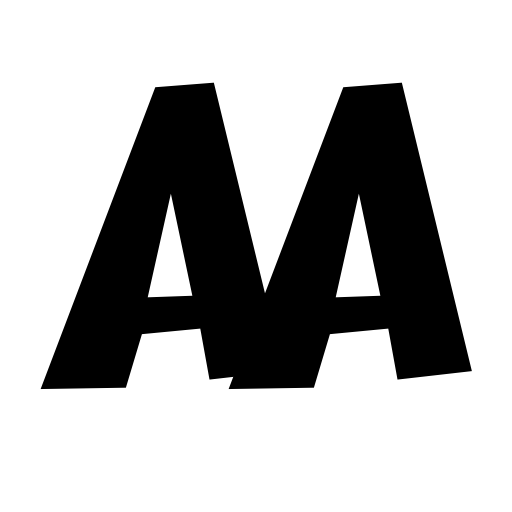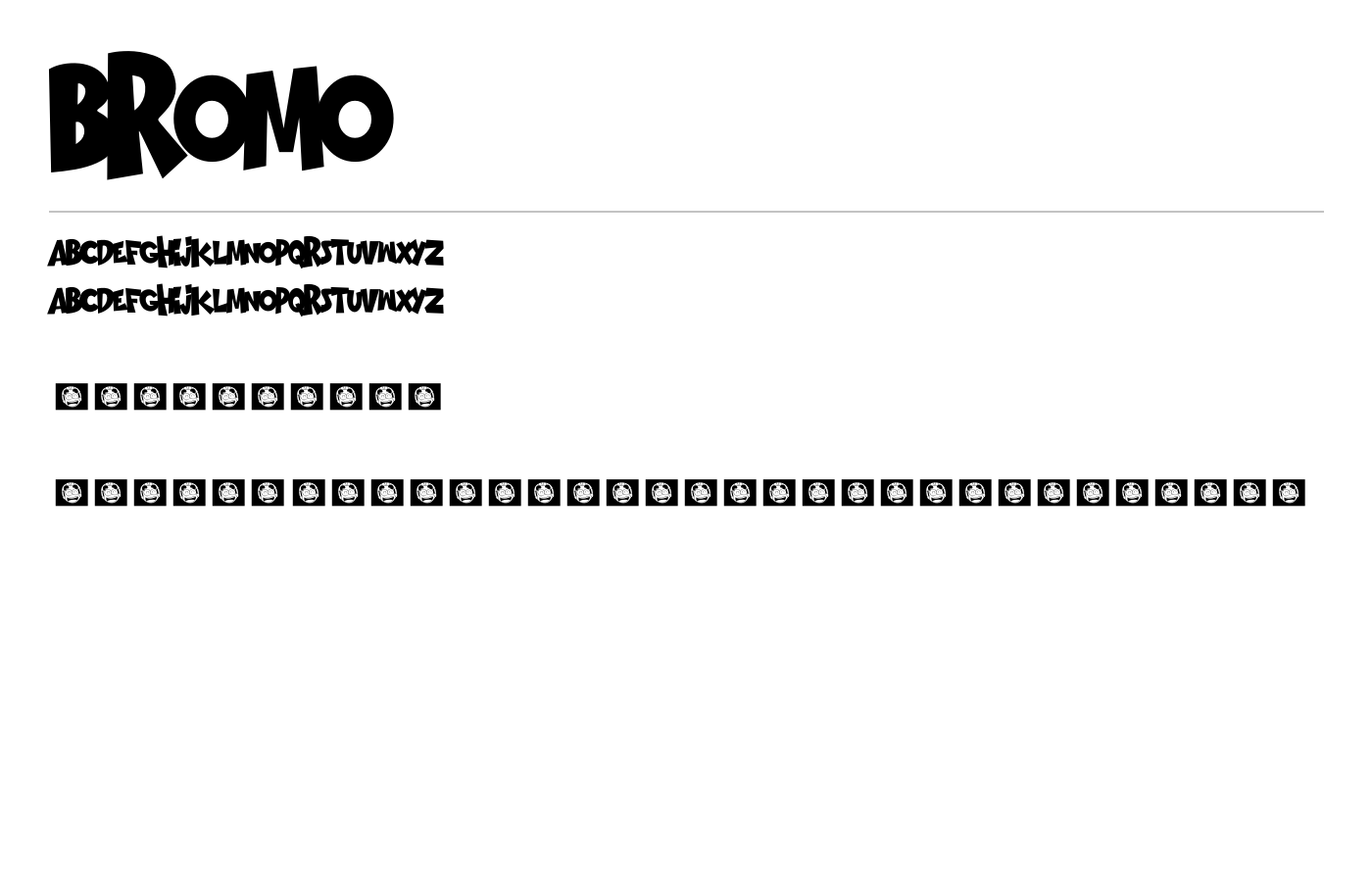
BROMO is a bold, playful display font with a strong, quirky character made evident through its thick, irregularly shaped letters and exaggerated proportions. Its lively, hand-drawn style makes it perfect for fun and energetic designs such as posters, logos, and branding that aim to capture attention with a youthful and creative vibe. This font works best in headlines or short texts where its distinctive personality can truly stand out.
BROMO Font